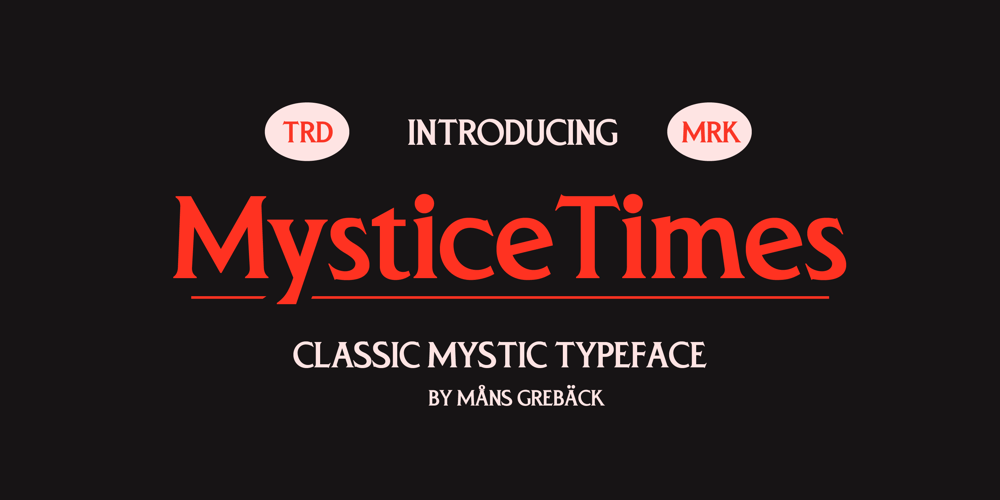
Mystice Times
Mystice Times font
Mystice Times Font Family was designed by Måns Grebäck and published by Mans Greback. Mystice Times contains 4 styles and family package options. Dive into a realm where retro meets mystique with the Mystice Times font. Channeling the enchanting ambiance of 80s thriller movies, this serif typeface echoes tales of mystery wrapped in professionalism. Its characters, though rooted in the cinematic charm of yesteryears, are tinged with an unpredictable, slightly eccentric flair. Yet, there’s an undeniable allure in its design – a suave nod to 70s funk, blending seamlessly with 80s charisma.